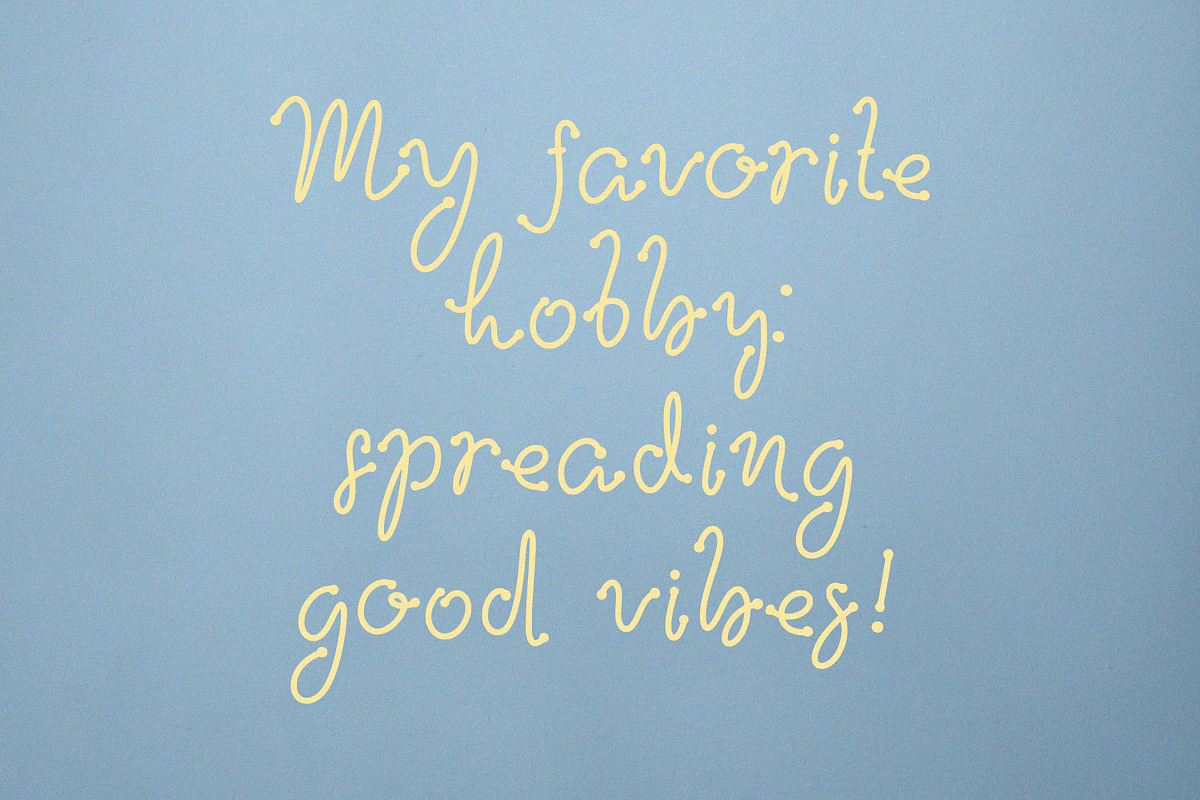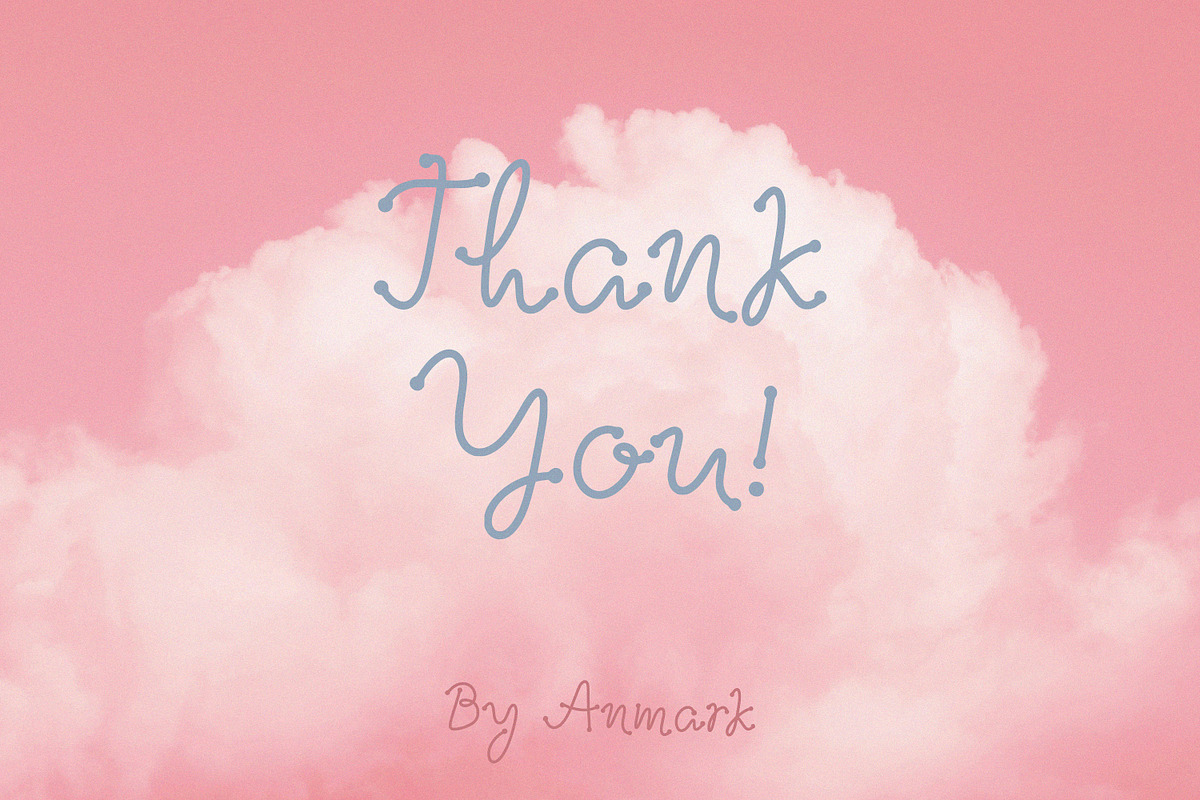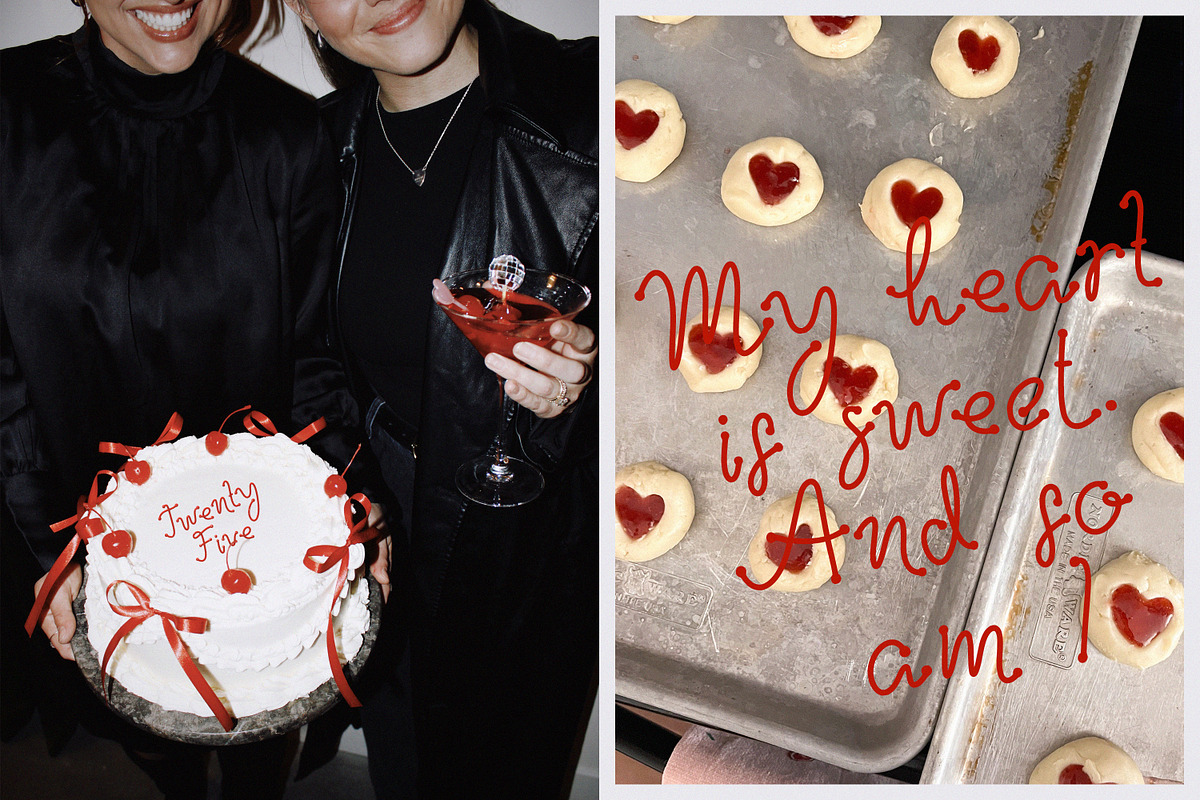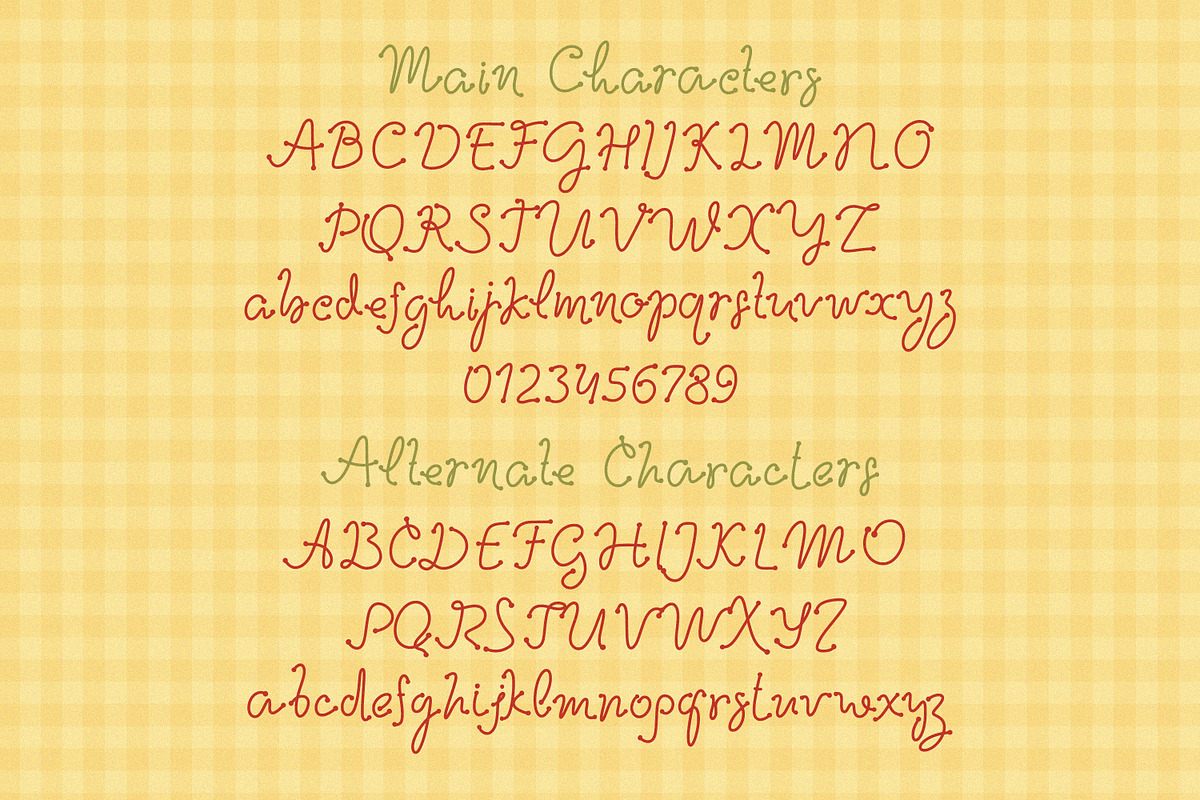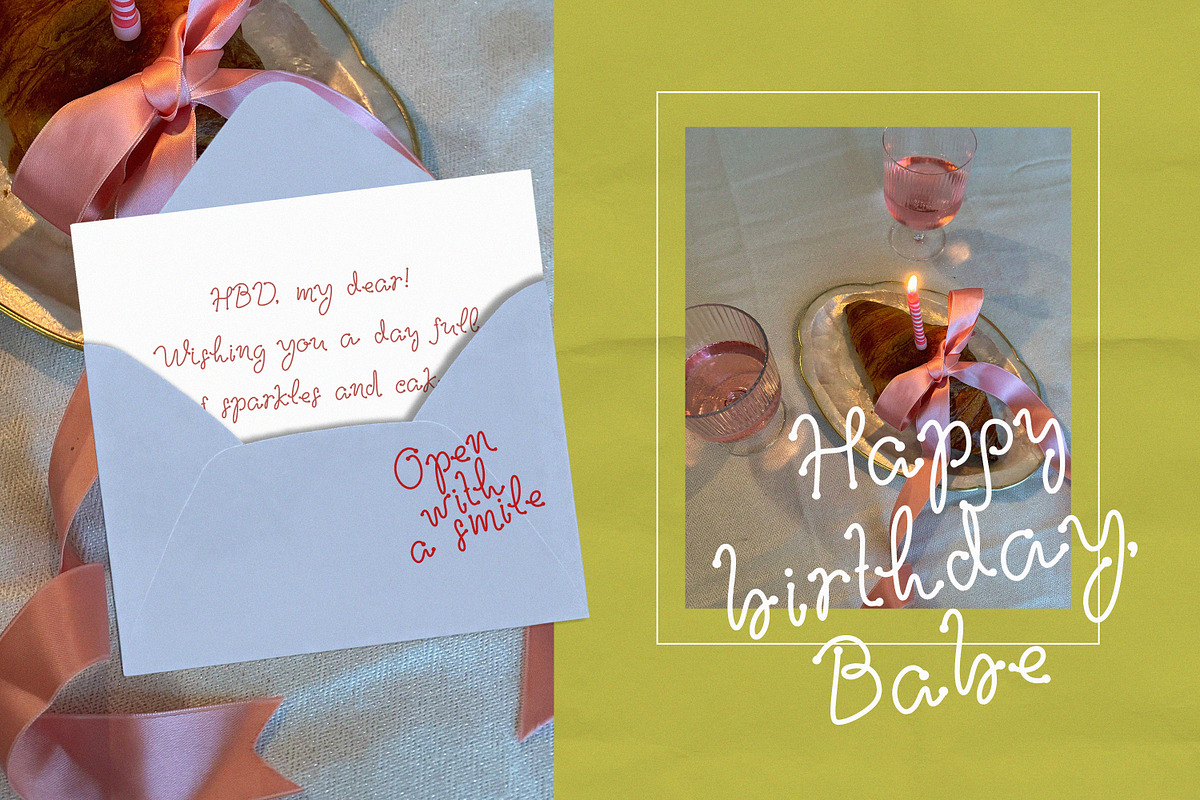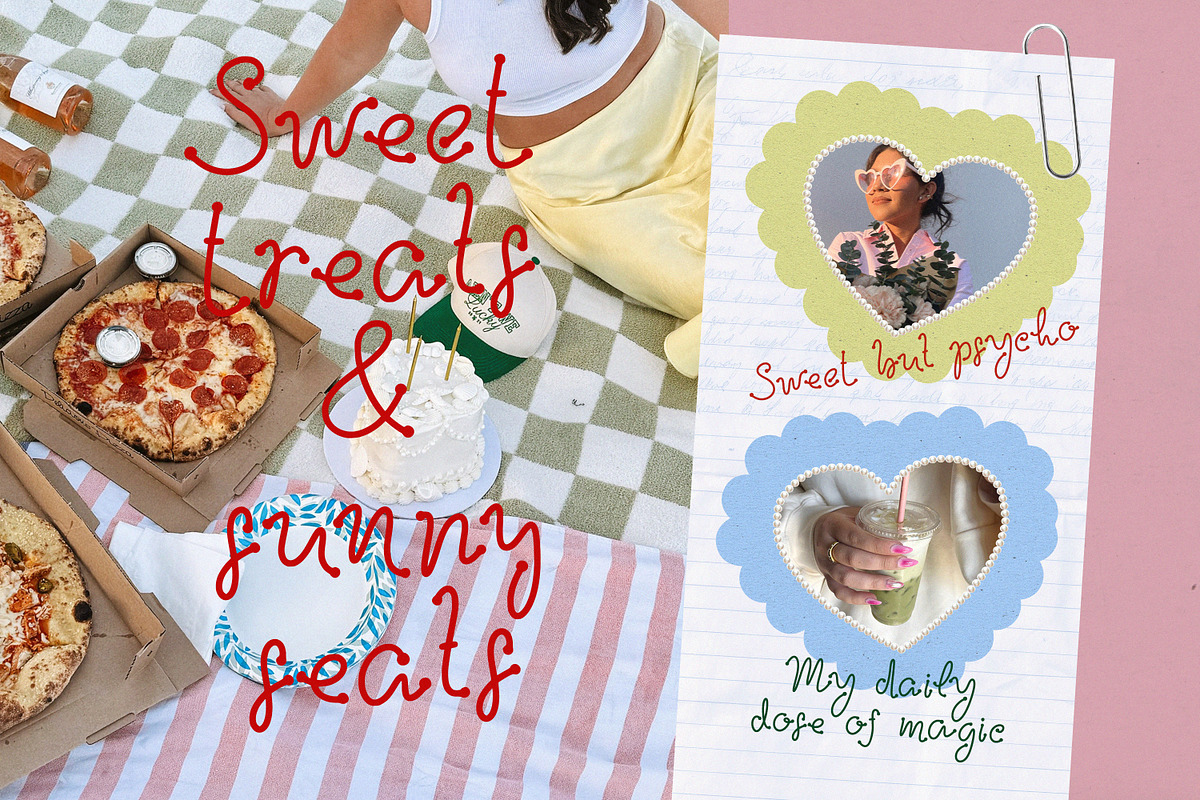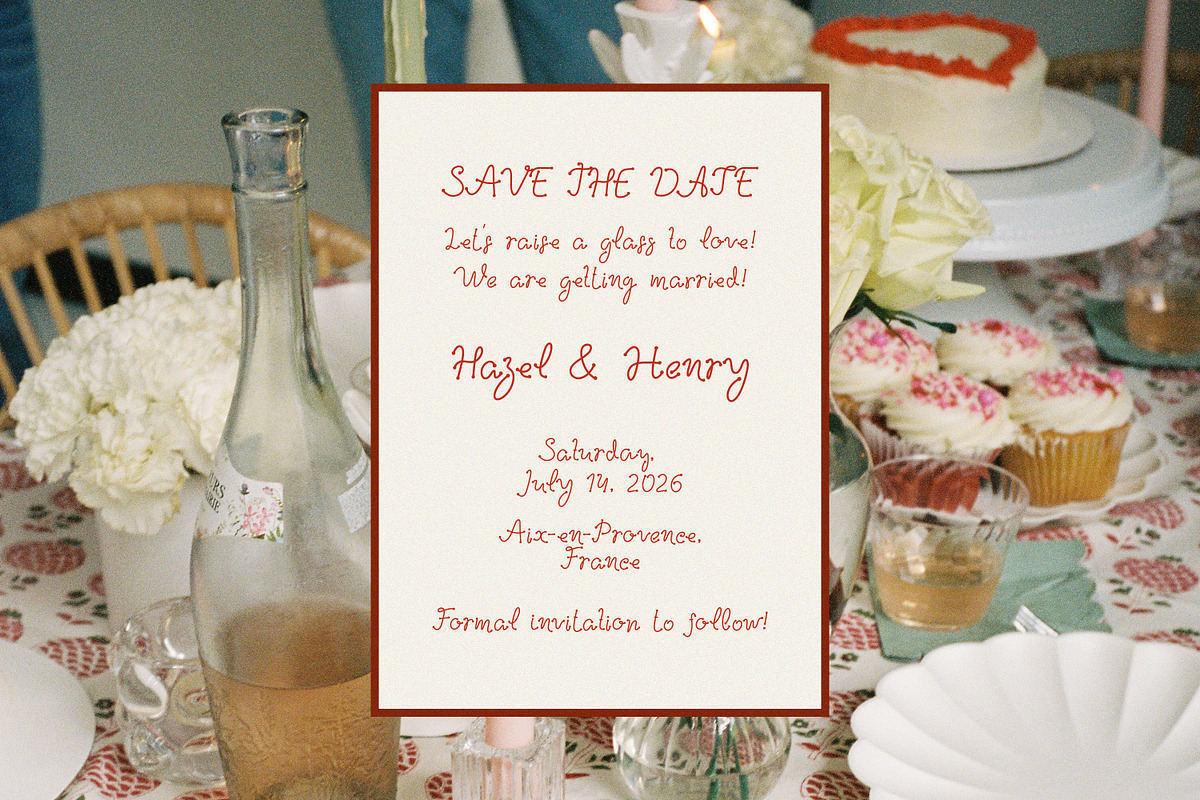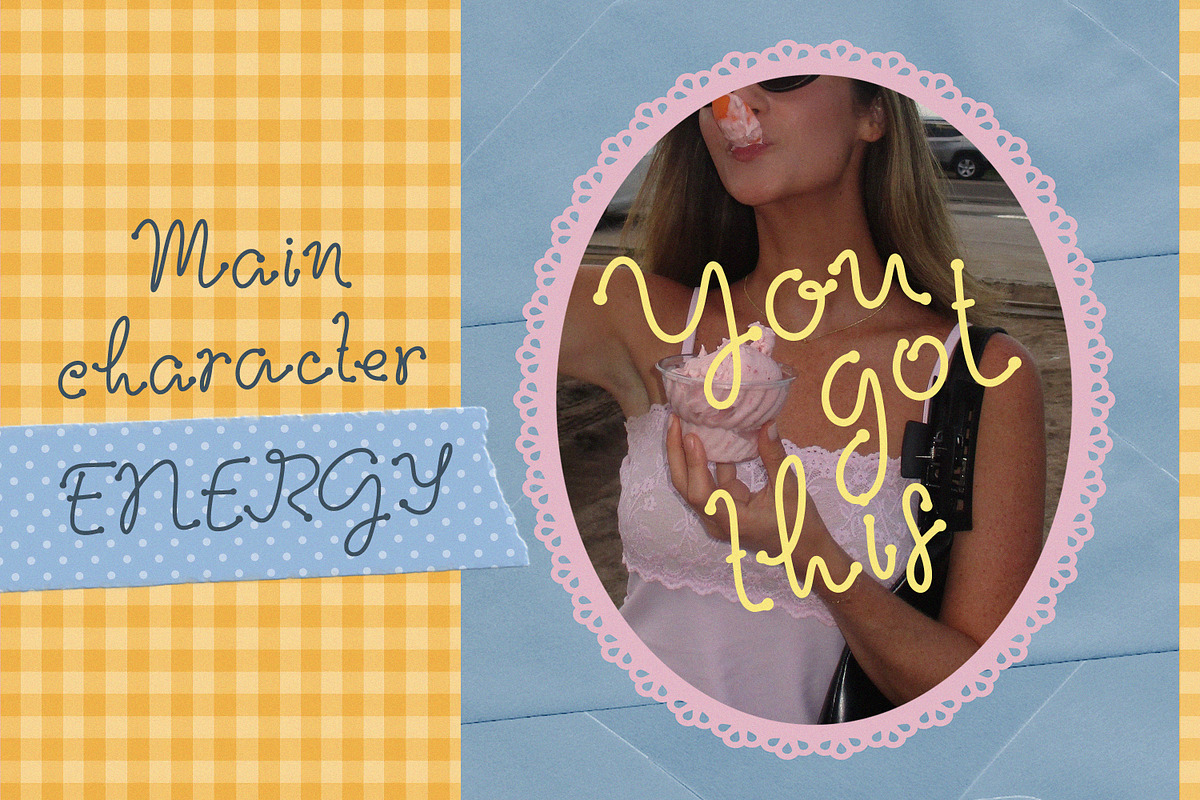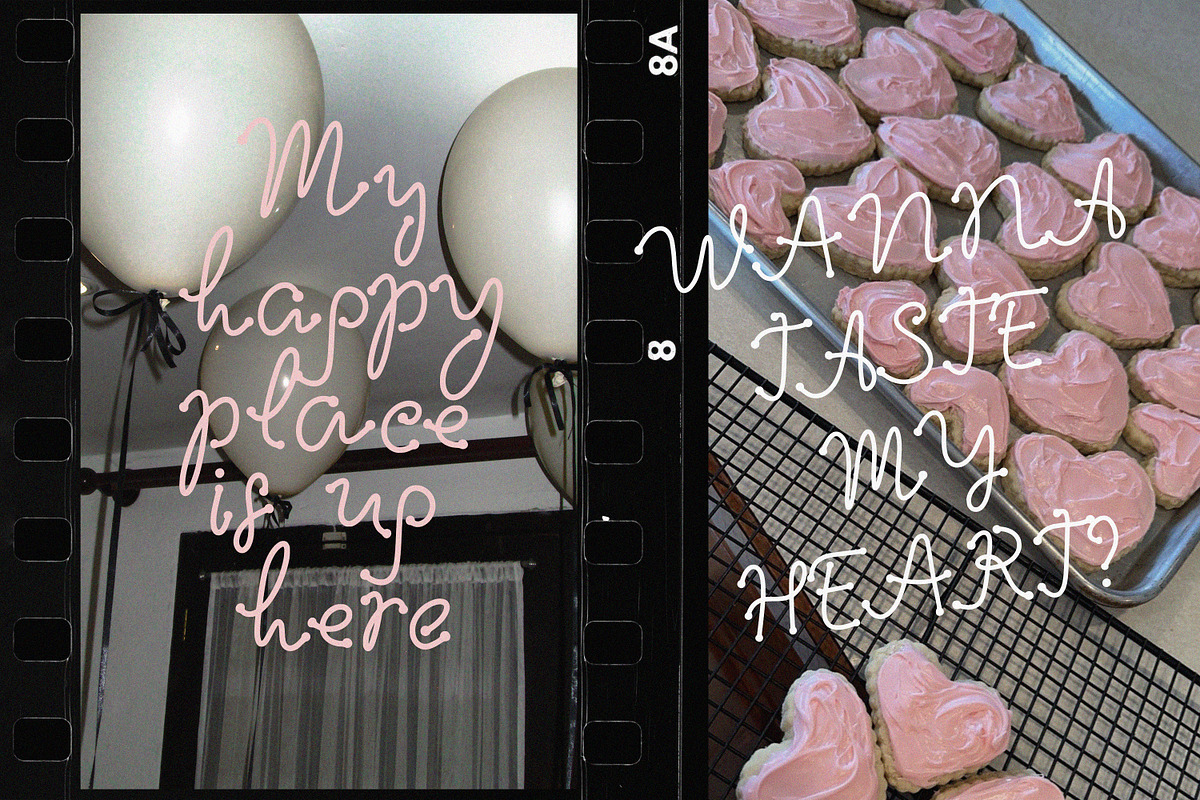
Sherbet. Sweet and Messy Girly Font
Sherbet is a sweet & messy girly font filled with playful energy, soft curves, and charming dotted details. It brings a cozy, handwritten vibe that feels fun, lighthearted, and a little chaotic in the best way. Perfect for designers who love cute aesthetics with personality.
This font comes with a full set of alternates for both uppercase and lowercase, allowing you to mix, match, and create a truly custom handwritten look. Use it to add warmth and character to any project that needs a soft-girl, playful mood.
Sherbet is ideal for wedding design, birthday cards, girly branding, packaging, planners, stickers, quotes, social media posts, and any sweet aesthetic projects. Whether you’re creating a love note, a recipe card, or a dreamy moodboard, Sherbet adds that bubbly, candy-like charm.
girly font projects
wedding font invitations
birthday cards & party decor
cute quote posts
aesthetic moodboards
small business branding
planners & journaling
scrapbooking & crafting
vibe font designs that feel sweet, messy, and fun
Bring a sprinkle of sherbet sweetness to your designs.